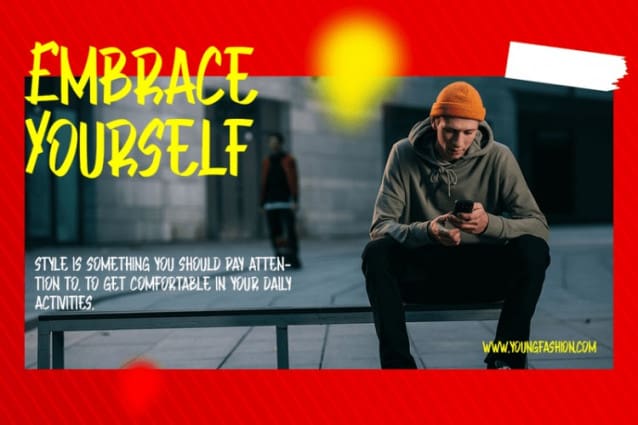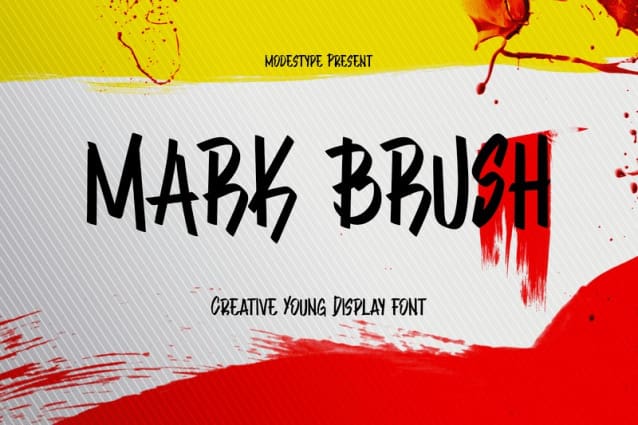
Mark Brush Font
Mark Brush Font – the ultimate Creative Young Display Font. This Sans Serif Font is the perfect combination of modern style and edgy attitude, making it perfect for those who want to create messaging that stands out.
Mark Brush is a graffiti-style font that stands tall above the rest. With its bold lines and playful design, it’s the ideal choice for those looking to create a fun and engaging look for their designs. And with its easy-to-read letters, it’s a great choice for conveying important messages that demand attention.
So why wait? Try Mark Brush today and see for yourself why it’s quickly becoming the go-to font for designers everywhere. This Instagram Font is sure to bring a youthful and creative energy to your project, making it stand out and leave a lasting impression on your audience.